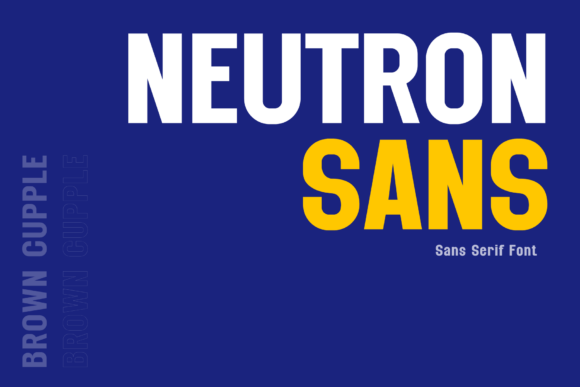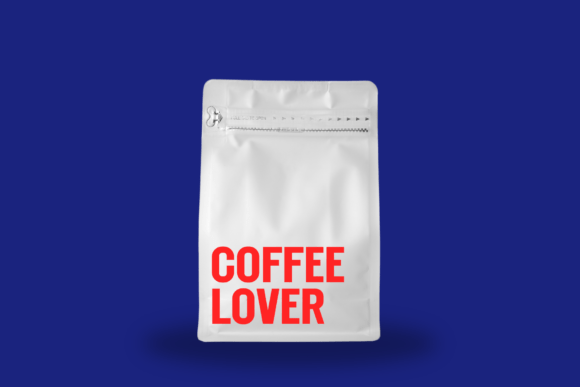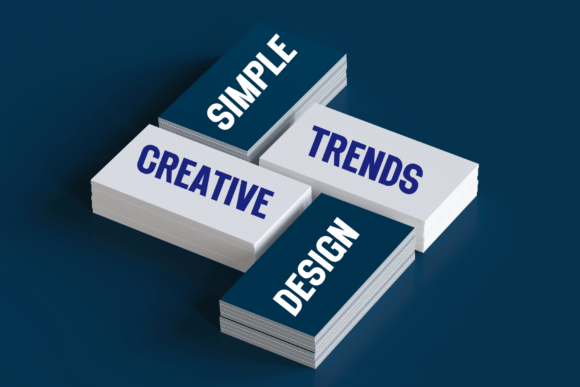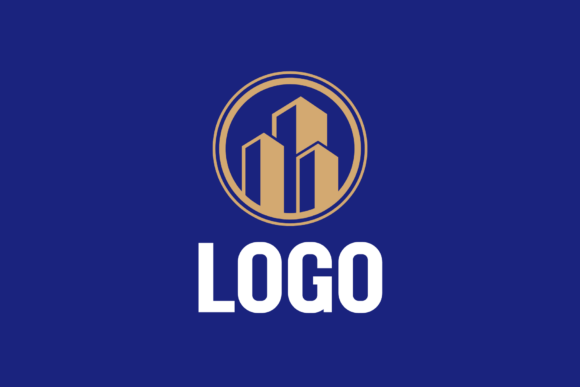
Neutron Sans Font
About the Neutron Sans Font
Presenting Neutron Sans Font, a unique and stylish typeface that will make your work stand out. Neutron Sans is a clean and modern sans serif font designed for versatility and readability. With its bold, professional look and sleek geometric lines, this font is perfect for branding, headlines, posters, web design, and editorial layouts. Its minimalist design ensures maximum legibility, making it ideal for both digital and print projects.
Neutron Sans excels in headlines, branding applications, and short-form text such as posters and signage. Its strong geometric structure lends itself well to conveying authority and modernity. However, its bolder weight might prove less effective for extended body copy or UI elements requiring high readability at smaller sizes.
Pairing Neutron Sans with a classic serif like Garamond or a warmer sans-serif such as Lato creates a pleasing contrast. For a more contemporary feel, consider pairing it with a geometric sans-serif like Futura or a clean script font for subtle elegance.
The overall personality of Neutron Sans is confident and sophisticated, making it a strong choice for brands aiming for a professional and modern image. It projects strength and clarity without being overly aggressive.
Neutron Sans Font Usage Examples
Neutron Sans Font Example